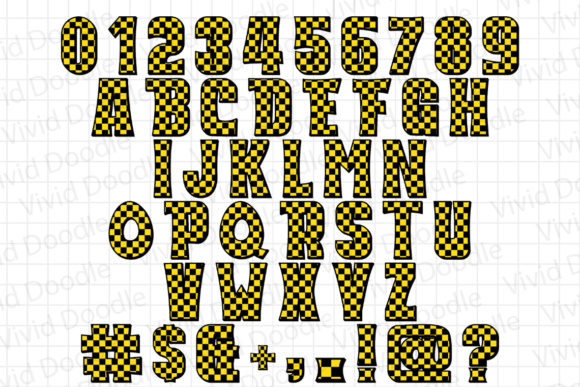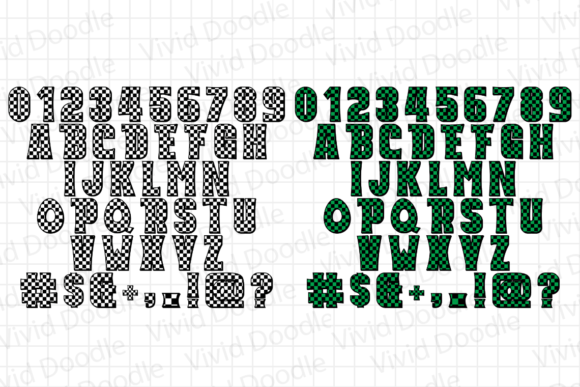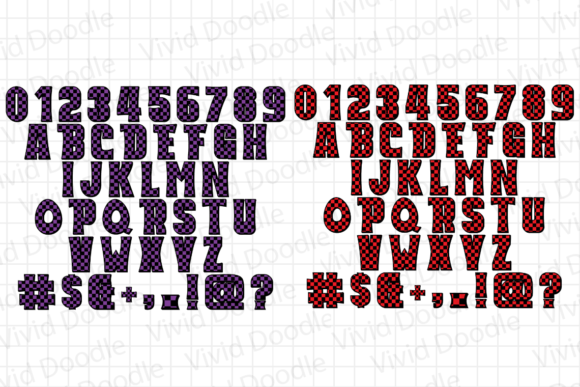
Introduction to Rainbow Colorful Checker Font
Have you ever stared at a blank canvas, eager to unleash your creativity but struggling to find the perfect design element to bring your project to life? For many designers, that moment of inspiration is just a font away. Introducing the vibrant and playful Rainbow Colorful Checker Font, a game-changing design resource that’s sure to add a splash of color and energy to your next creative project.
Whether you’re working on a sport-themed poster, crafting engaging classroom materials, or designing holiday graphics, this high-quality font is the perfect addition to your design toolkit. Its unique combination of a playful checkerboard pattern and a spectrum of colors makes it an excellent choice for designers seeking a fun and versatile font that’s sure to catch everyone’s eye.
Key Features of Rainbow Colorful Checker Font
- Unique and vibrant design ideal for creative projects, making it a valuable design resource.
- Includes a variety of colors and patterns to suit different design needs, making it a versatile design resource.
- Perfect for adding a pop of color and creativity to your designs, making it an excellent choice for designers and artists.
Honest Review: Rainbow Colorful Checker Font
I recently came across the Rainbow Colorful Checker Font and was excited to give it a try for my creative project. As a designer, I’m always on the lookout for high quality design resources that can add a pop of color to my work. This font did not disappoint!
- ✨ The Rainbow Colorful Checker Font has a unique and playful design that’s perfect for adding a fun touch to any project.
However, I did notice a few limitations:
- ⚠️ The font may not be suitable for projects that require a professional or corporate look.
Overall, I’m impressed with the Rainbow Colorful Checker Font and would definitely recommend it for designers looking for a fun and creative design resource. Just be aware of its limitations and use it accordingly.
Rainbow Colorful Checker Font
The Rainbow Colorful Checker Font is a versatile design resource perfect for adding a pop of color to your creative project. With its high-quality, transparent background, you can easily integrate it into your design without any distractions.
Using the Font in PowerPoint/Word
For PowerPoint and Word users, the Rainbow Colorful Checker Font is a great way to add some visual interest to your presentations and documents. You can use it to highlight important information, create eye-catching headings, or even add some fun to your reports.
To get the most out of the Rainbow Colorful Checker Font, try experimenting with different color combinations and arrangements. You can also use the font in combination with other design elements to create a unique and eye-catching look.
The Rainbow Colorful Checker Font is perfect for a variety of creative projects, including social media graphics, flyers, presentations, and reports. You can also use it to add some fun to your blog posts, website headers, or even product packaging.